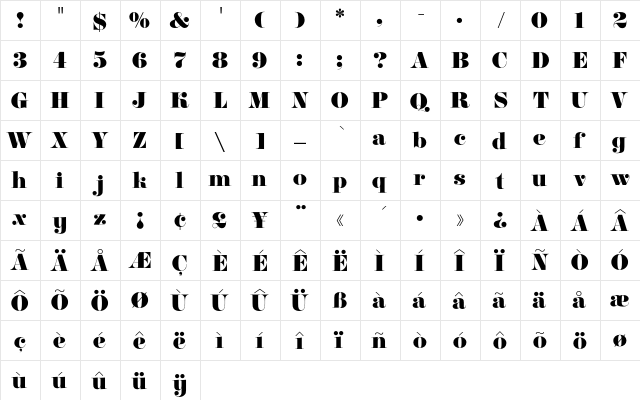
CarouselEF Regular Font Preview
CarouselEF Regular
Design Context for CarouselEF Typeface
CarouselEF offers clean, dependable letterforms without strong stylistic allegiance, making it a practical choice for designers who need flexibility.